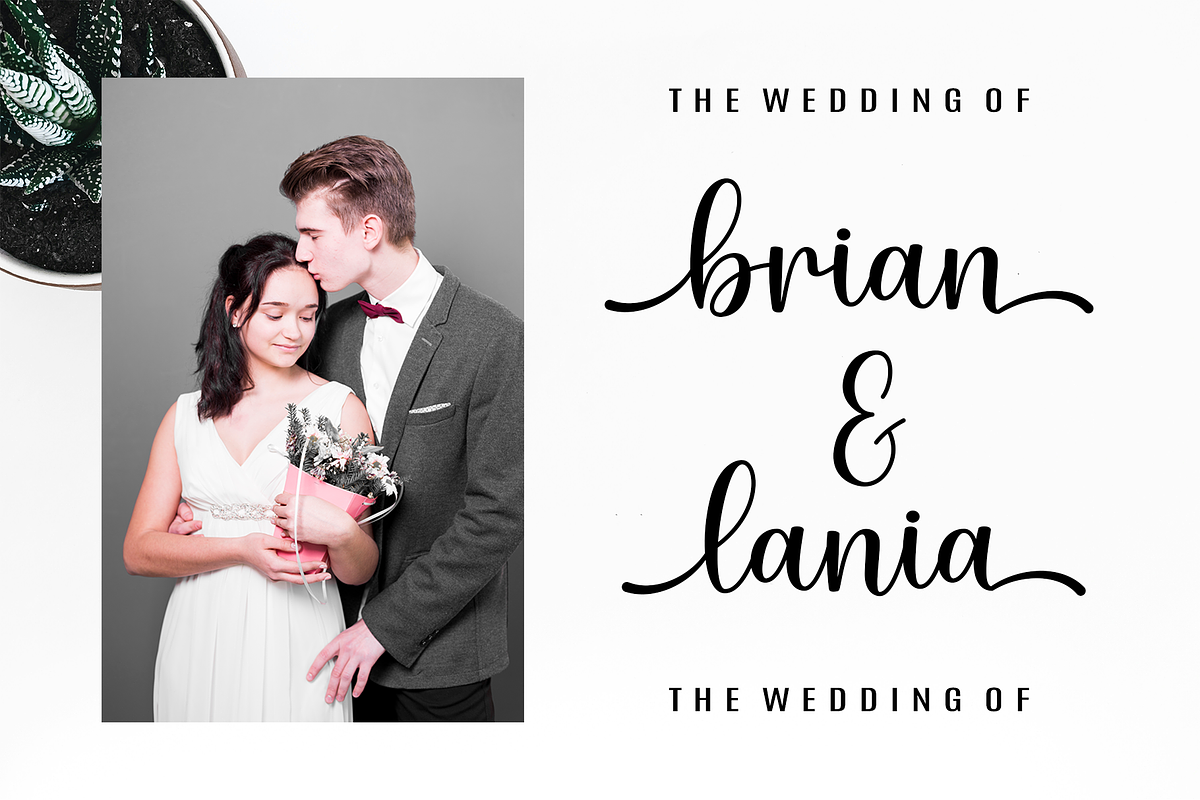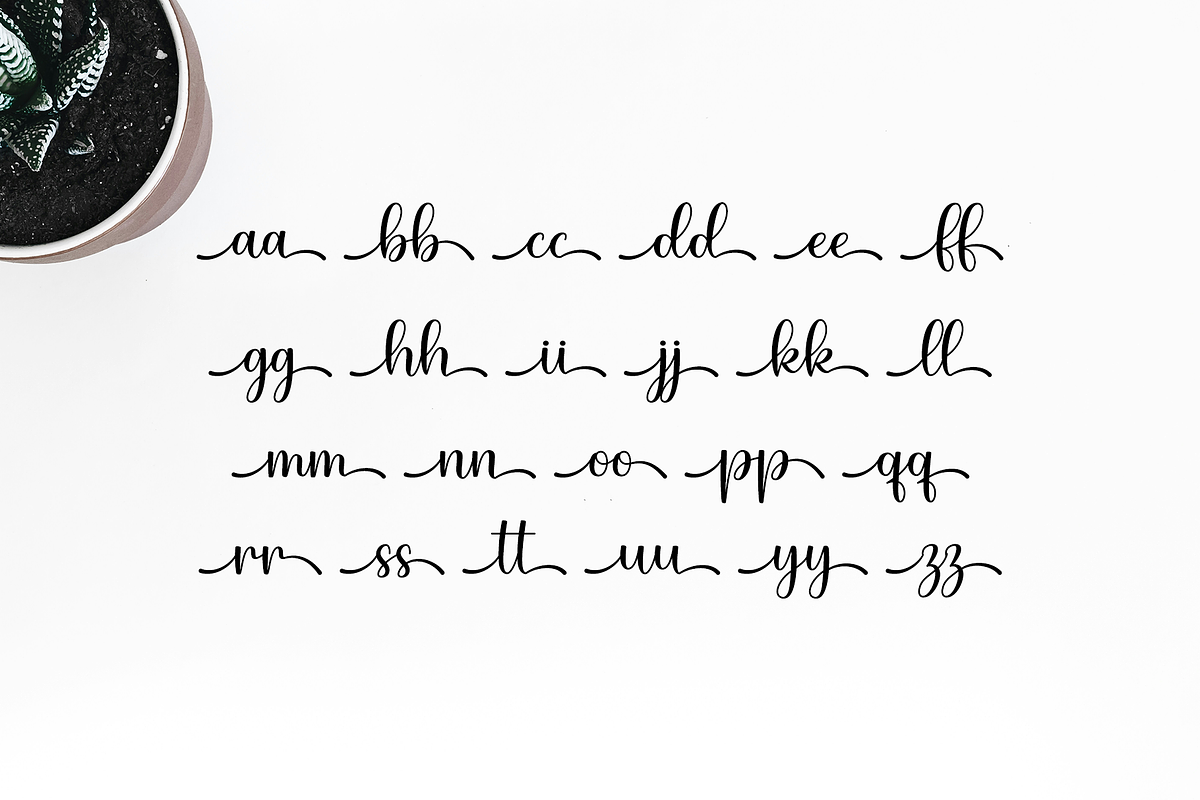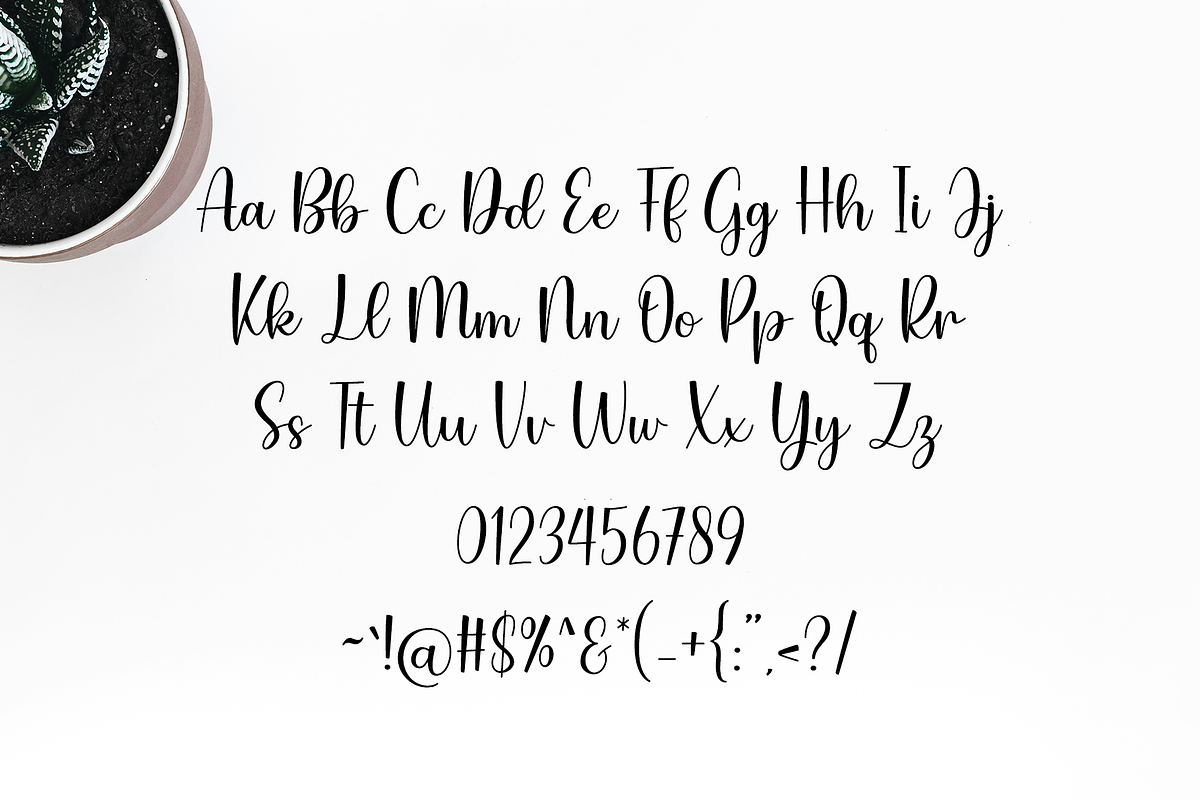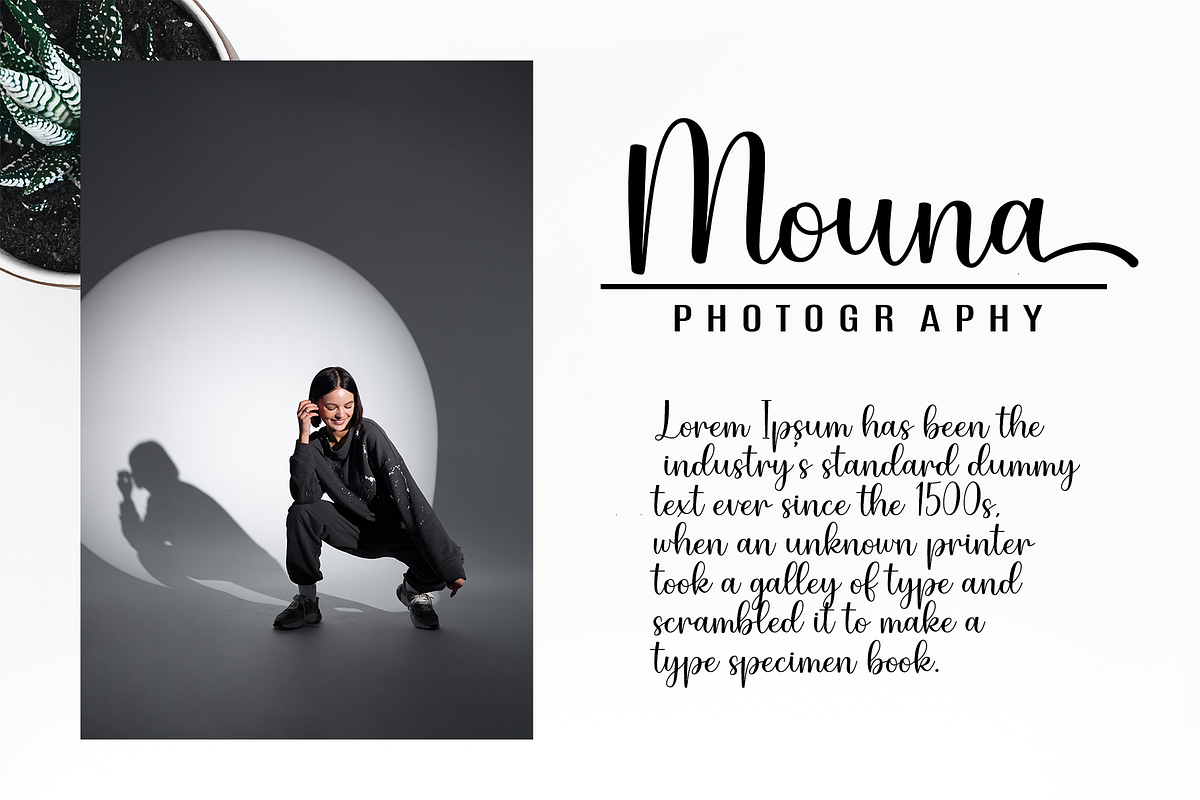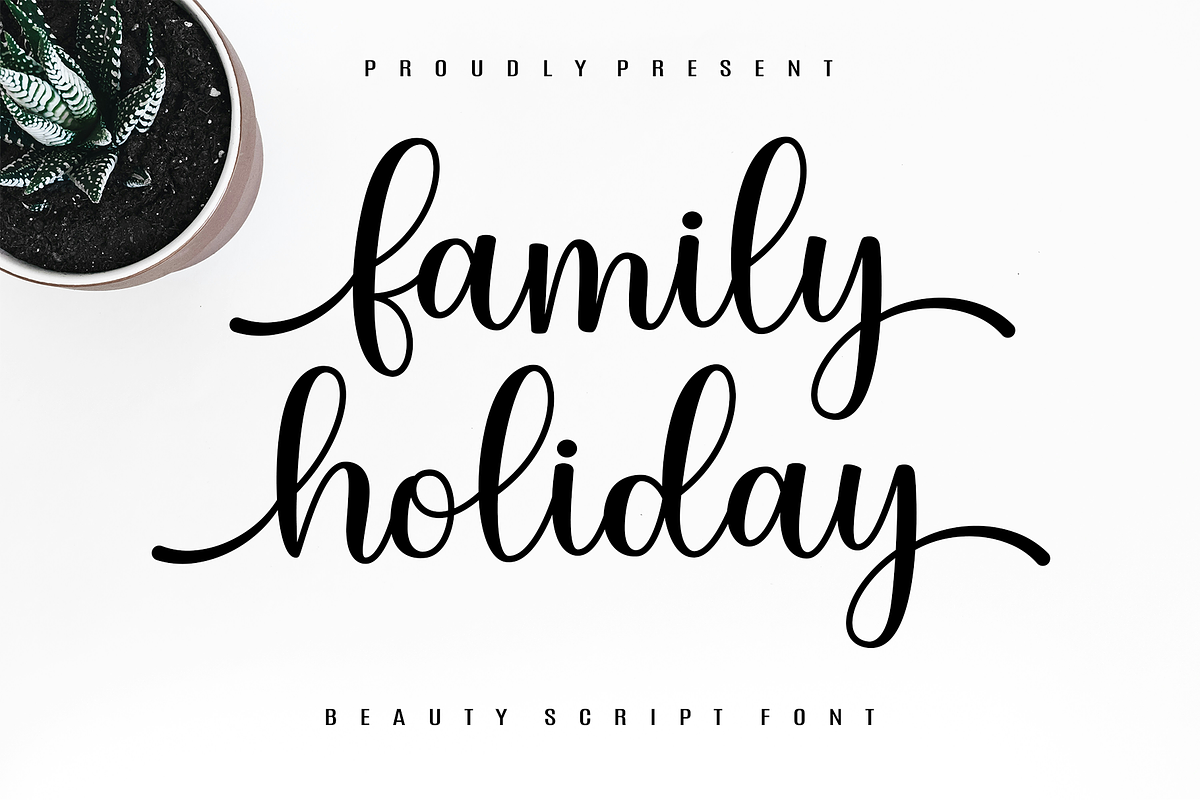
Family Holiday
Introducing Family Holiday, a strikingly beautiful script font elegantly etched in a unique style that leaves an indelible imprint in mind. Its well-crafted design, evocative of touchingly memorable times, offers a sophisticated elegance that instantly resonates with an aesthetic appeal.
Every letter intertwined in the ‘Family Holiday’ font carries a rich flow, delivering an exquisite blend of refinement and distinction. Get ready to transform every creative venture into a visual masterpiece with the Family Holiday script font’s timeless beauty and remarkable grace.